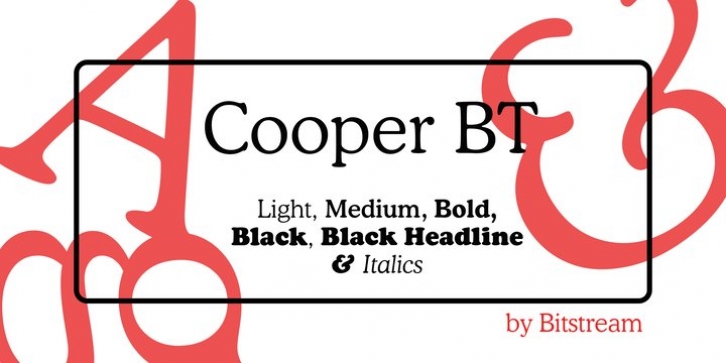
Cooper BT was designed by Oswald Cooper and published by Bitstream. Cooper BT contains 11 styles. The font is currently #38 in Best Sellers.
Cooper Black, commissioned by Barnhart Brothers & Spindler, is the best known of Oswald Cooper's typefaces. Bitstream has expanded the 1921 original into a complete series of round-edged text faces.